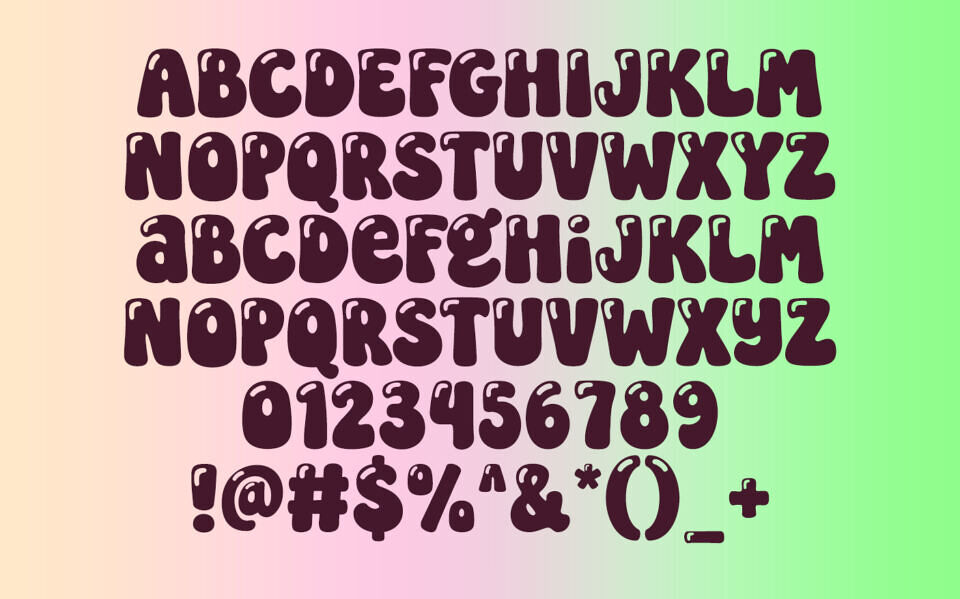
Super Popstar is a vibrant, free-to-use display font that screams personality. This bubble-style typeface features thick, rounded letterforms with playful “glossy” highlights, mimicking a shiny, inflated aesthetic. Perfect for Y2K-inspired graphics, bold posters, and kid-friendly branding, its high-contrast weight ensures maximum readability.
The set includes uppercase, lowercase, and numeric characters, plus essential symbols. Whether you’re crafting streetwear logos or social media headers, Super Popstar delivers a fun, bouncy, and energetic retro-pop vibe.